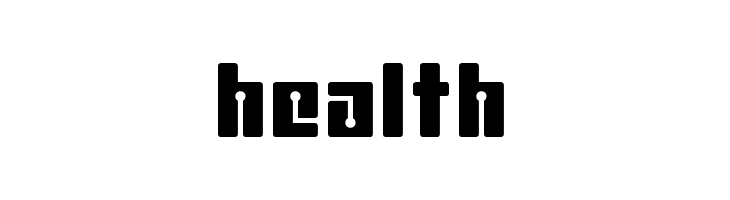
A bold, rounded font with a playful and friendly style.
AnkeHand Font
A casual, friendly handwritten font with smooth, flowing lines.
Free Serif Bold Font
GNU FreeFont - savannah.gnu.org/projects/freefont/
A bold, classic serif font with strong, authoritative strokes.
001 Interstellar Log Font
A futuristic, playful font with rounded, bulbous letterforms and a smooth, flowing style.
SF Florencesans Black Font
A bold, modern sans-serif font with clean lines and geometric shapes.
New Romantics Font
A bold, high-contrast serif font with a modern yet classic style.
Avengeance Mightiest Avenger Font
A bold, italicized font with strong, dynamic letterforms and a modern, impactful style.
Dancing Juice & Salabat Font